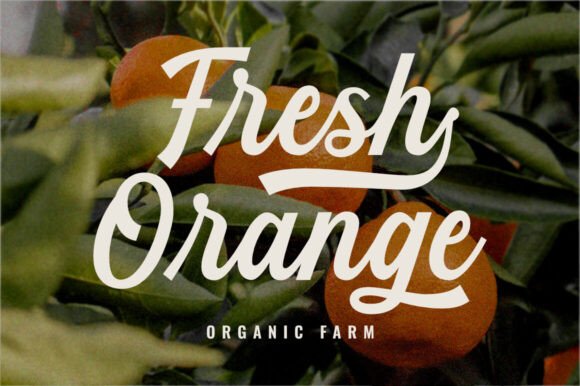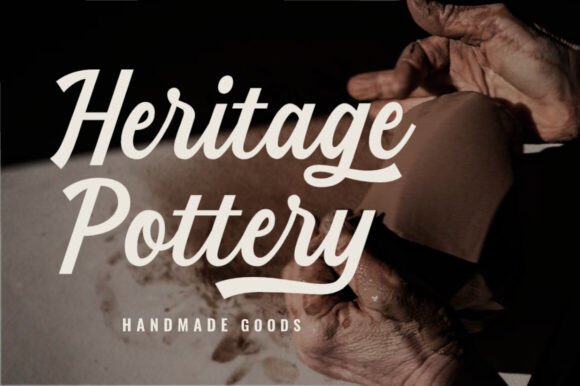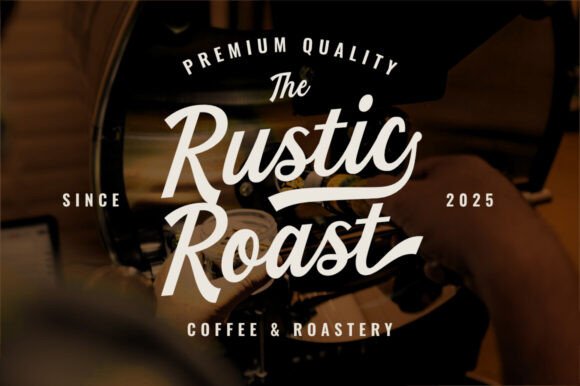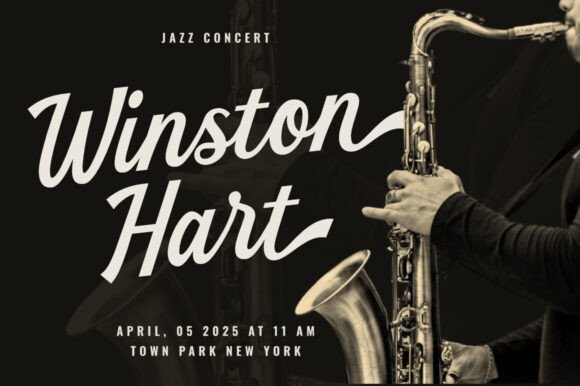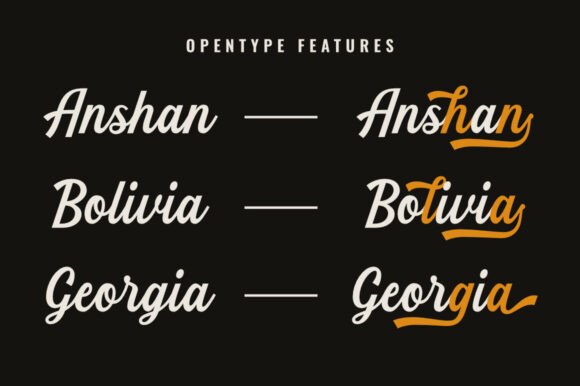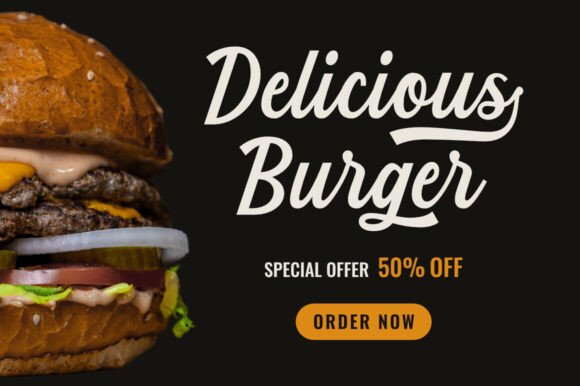
Introduction to Monbite Font
Monbite is a vintage script typeface with bold curves with stylish swashes.
Inspired by classic calligraphy and retro signage, this font is perfect for branding, invitations, logos, packaging, and more .
Monbite Font offers exceptional quality and versatility, making it a valuable addition to your design toolkit. Whether you’re creating for personal projects or commercial use, Monbite Font delivers professional results.